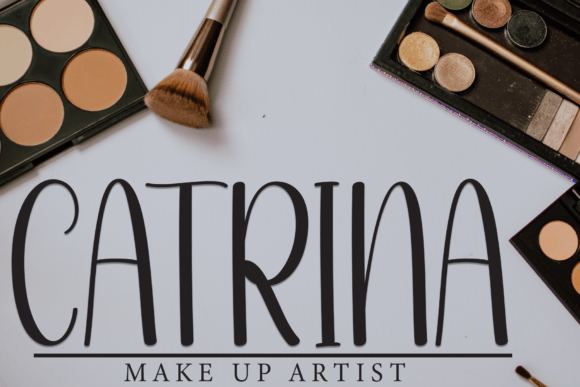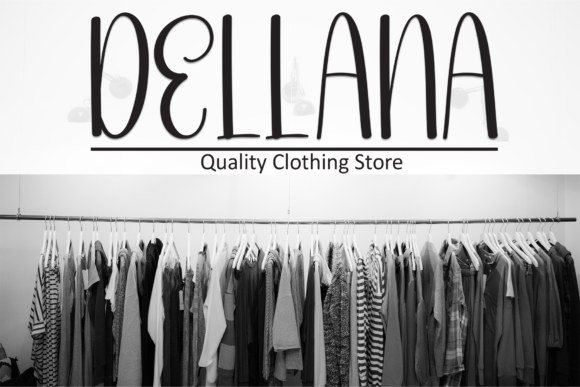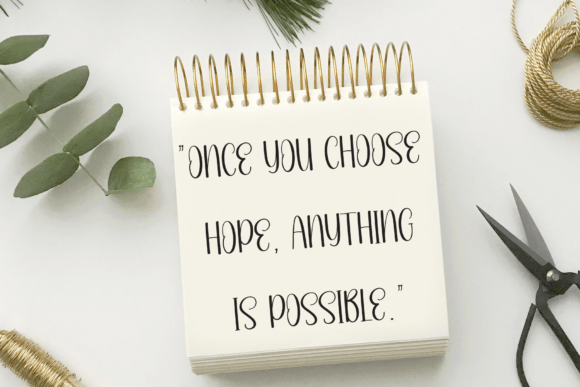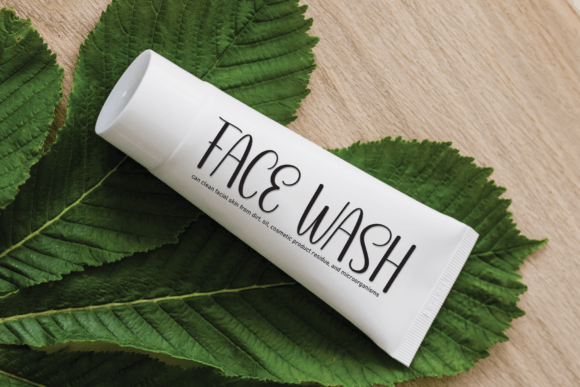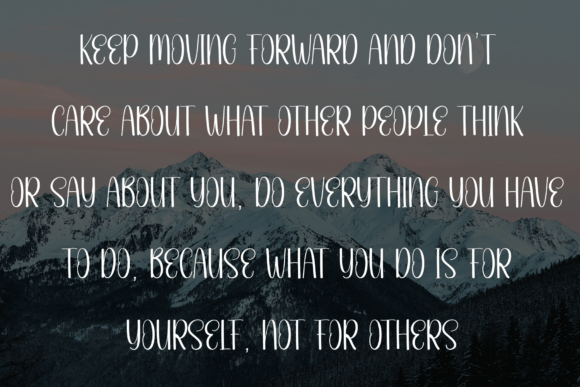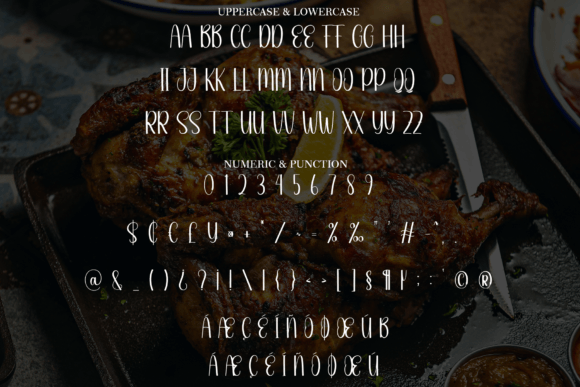
Introducing Grilled Chicken Font: The Sweet and Friendly Handwritten Font for Your Creative Projects
Are you looking for a font that can add a touch of sweetness and friendliness to your designs? Look no further than Grilled Chicken Font! This beautiful handwritten font is perfect for creating wedding invitations, greeting cards, and other designs that require a fun and playful touch. In this article, we’ll take a closer look at Grilled Chicken Font and explore its features, benefits, and uses.
What is Grilled Chicken Font?
Grilled Chicken Font is a sweet and friendly handwritten font that is designed to bring a fresh and cute feel to your designs. Its unique and elegant style makes it perfect for a wide range of creative projects, from wedding invitations and cards to posters, flyers, and more. Whether you’re a designer, crafter, or DIY enthusiast, Grilled Chicken Font is a great addition to your font collection.
Key Features of Grilled Chicken Font
- Handwritten style: Grilled Chicken Font has a beautiful handwritten style that gives it a personal and friendly touch.
- Sweet and elegant: The font has a sweet and elegant feel that makes it perfect for designs that require a touch of sophistication.
- Fresh and cute: Grilled Chicken Font is fresh and cute, making it ideal for designs that require a fun and playful touch.
- Versatile: This font is versatile and can be used for a wide range of creative projects, from wedding invitations to posters and flyers.
Benefits of Using Grilled Chicken Font
There are many benefits to using Grilled Chicken Font in your designs. Here are a few:
- Adds a personal touch: Grilled Chicken Font has a personal and friendly feel that can add a touch of warmth to your designs.
- Perfect for wedding designs: This font is ideal for wedding invitations, cards, and other designs that require a sweet and elegant touch.
- Easy to read: Grilled Chicken Font is easy to read, making it perfect for designs that require a clear and legible font.
- Unique and creative: This font is unique and creative, making it perfect for designers who want to add a touch of personality to their designs.
Uses of Grilled Chicken Font
Grilled Chicken Font can be used for a wide range of creative projects, including:
- Wedding invitations: This font is perfect for creating beautiful and elegant wedding invitations.
- Greeting cards: Grilled Chicken Font can be used to create fun and playful greeting cards for special occasions.
- Posters and flyers: This font can be used to create eye-catching posters and flyers for events, promotions, and more.
- Social media graphics: Grilled Chicken Font can be used to create fun and engaging social media graphics.
Tips for Using Grilled Chicken Font
Here are a few tips for using Grilled Chicken Font in your designs:
- Use it for headings: Grilled Chicken Font is perfect for headings and titles, where its elegant and sweet style can shine.
- Pair it with other fonts: This font can be paired with other fonts to create a unique and creative look.
- Experiment with colors: Grilled Chicken Font can be used with a range of colors to create different moods and effects.
Grilled Chicken Font is a beautiful and versatile handwritten font that can add a touch of sweetness and friendliness to your designs. Its unique and elegant style makes it perfect for a wide range of creative projects, from wedding invitations to posters and flyers. Whether you’re a designer, crafter, or DIY enthusiast, Grilled Chicken Font is a great addition to your font collection.